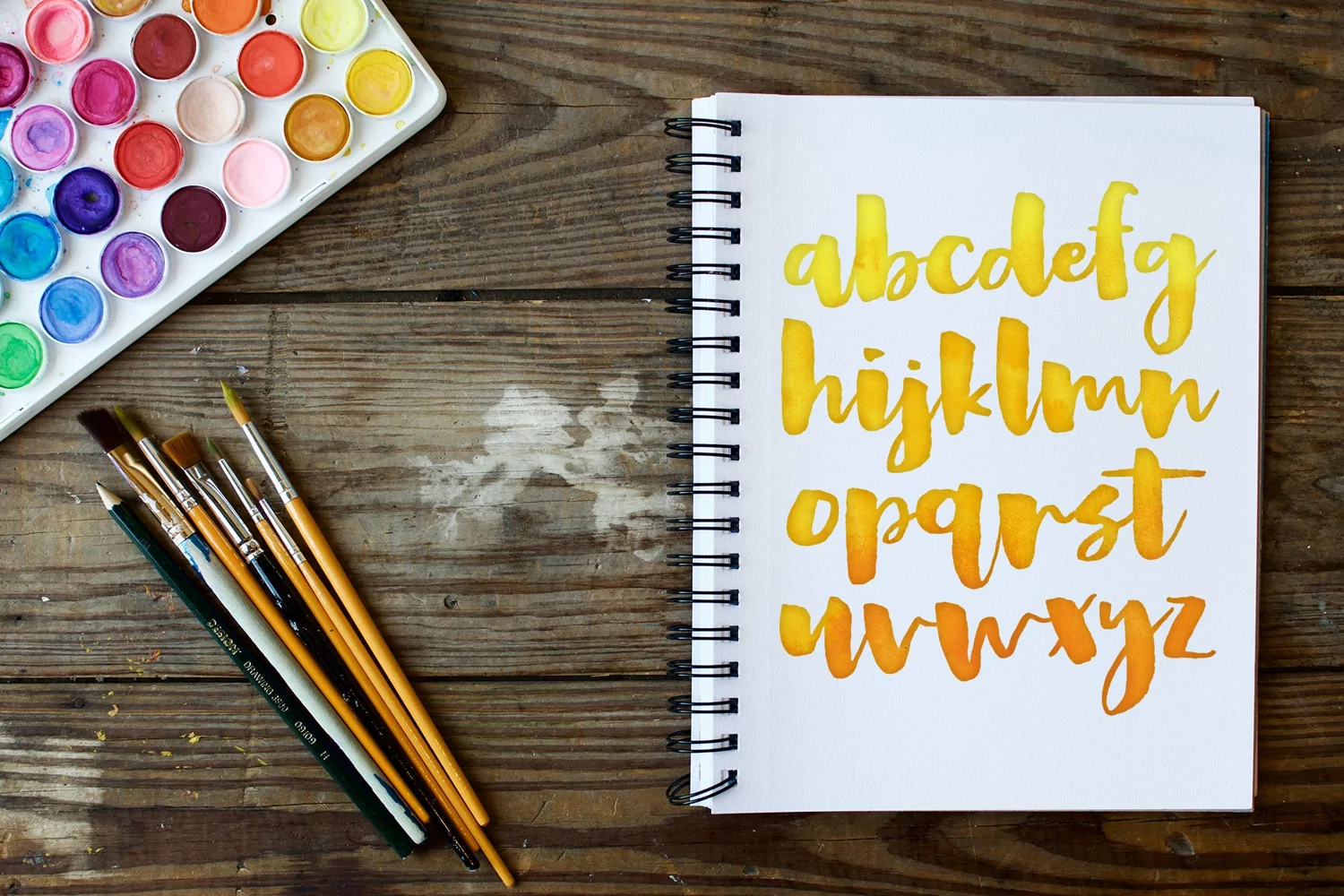
Lemon Shake is an inky brush script with super heavy downstrokes, and skinny loops and upstrokes. It was made with a watercolor brush and my favorite black liquid watercolor, and retains all of the gorgeous wobbly textured edges for an authentic inky look.
Lemon Shake is effortlessly cool. It has a messy, careless attitude. I'm calling it my nod to 90's grunge. It's bold and attention grabbing - perfect for headlines, titles, packaging, quote art, products, and more.
Use alternate lowercase and double letter ligatures to create a perfectly hand painted look in your creations.
- lowercase alternates
- some double letter ligatures